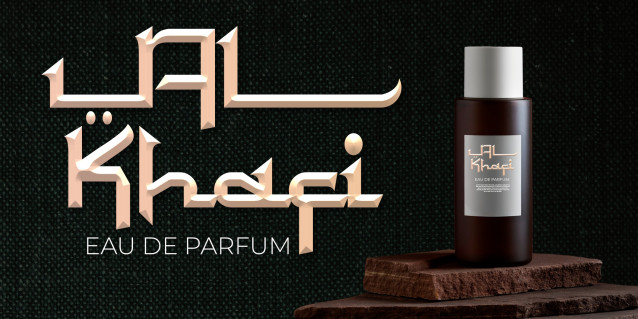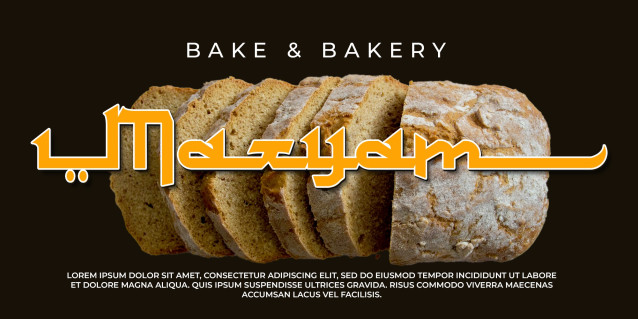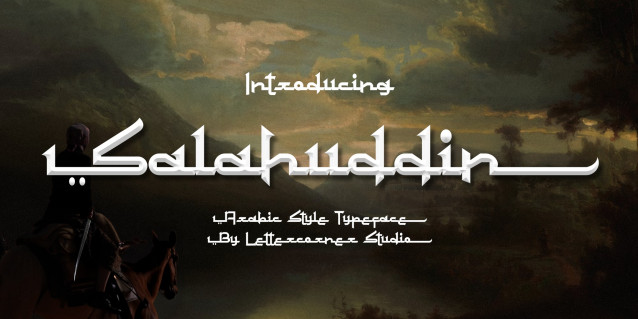
Salahuddin Font
Salahuddin Font, our newest Arabic-style font crafted to elevate your creative projects. Its sleek, condensed shape is ideal for bold headlines or standout display text, bringing a touch of Middle Eastern elegance to any design.
Designed with simplicity in mind, Salahuddin features a minimalist aesthetic that’s clean and modern, yet still captures the essence of traditional Arabic flair. With versatile alternative characters, this font allows you to effortlessly add beauty and sophistication to your work.
Perfect for posters, weddings, stickers, labels, packaging, fashion, logos, signage, and more—Safaniah is your go-to font for impactful, timeless designs.
It contains uppercase, number, punctuation, symbols and support multilingual. This font is great for branding, business cards, logo, poster, t-shirt, photography, invitations, and more.